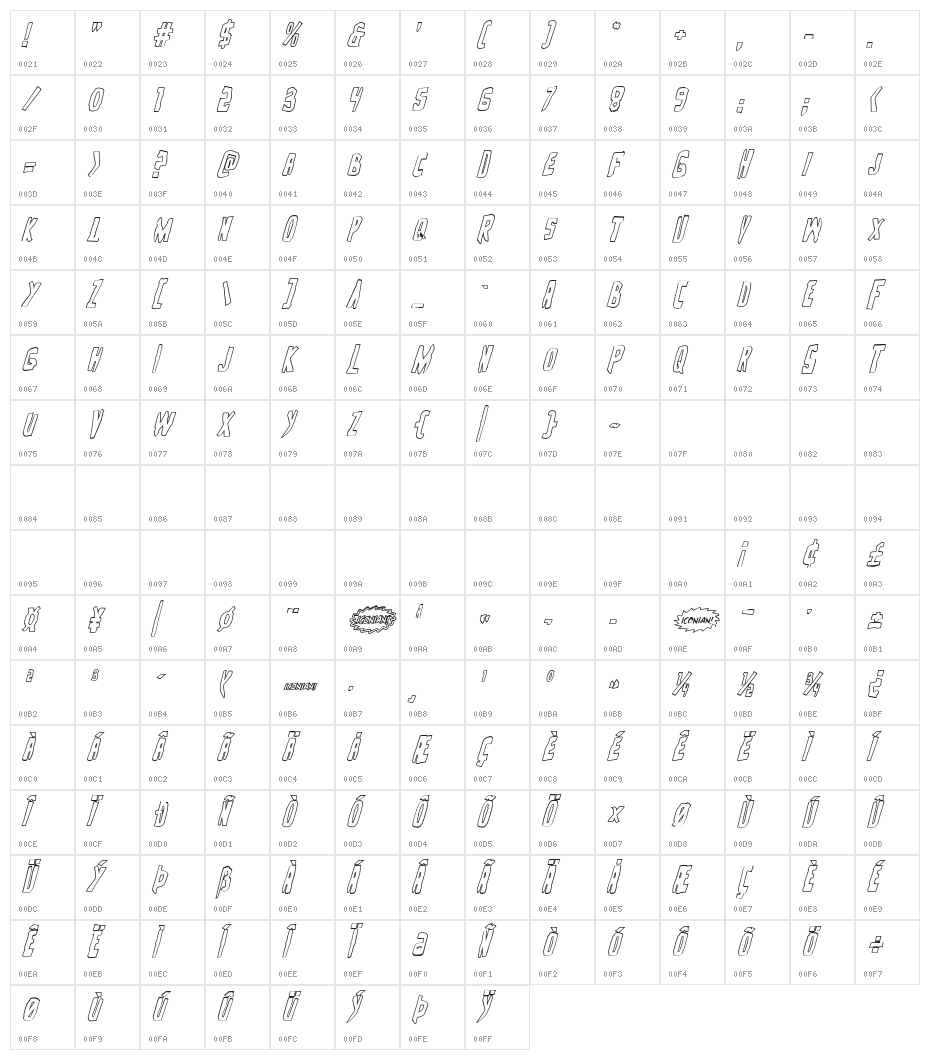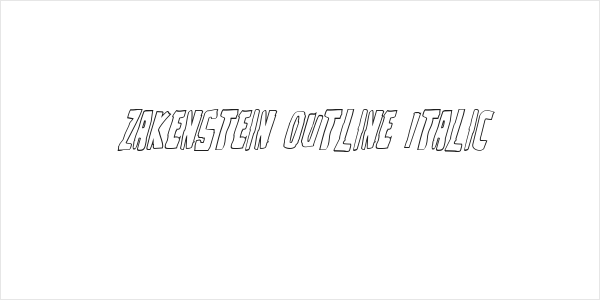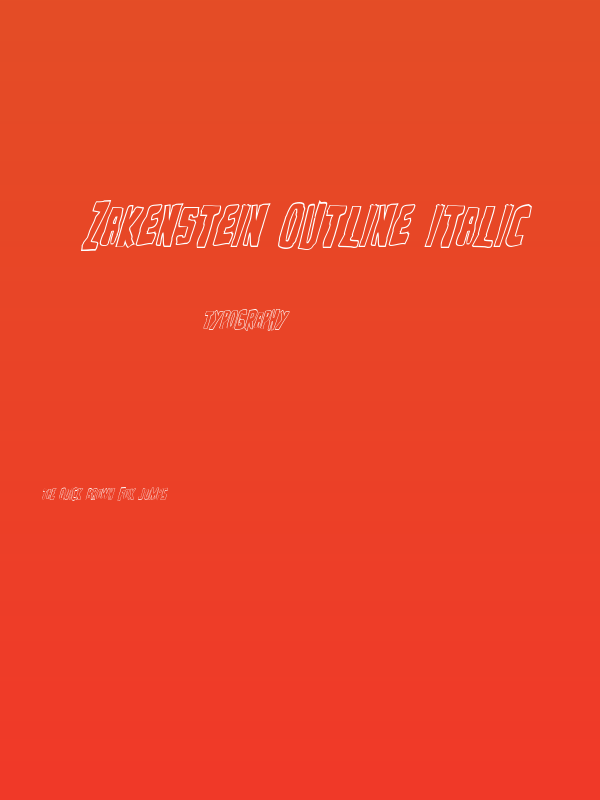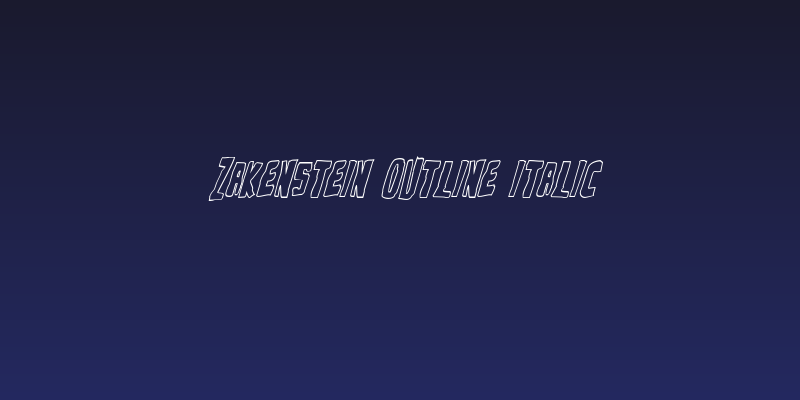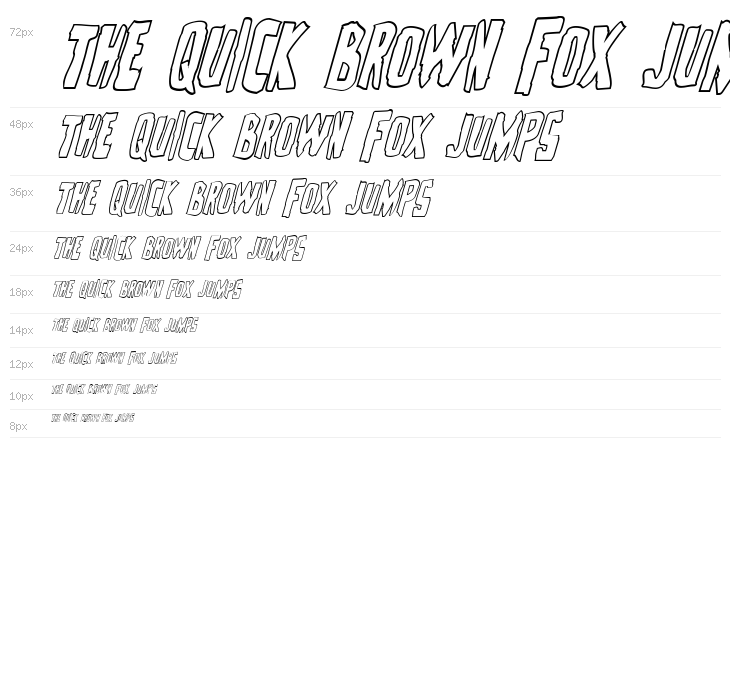
Zakenstein Outline Italic Font
Zakenstein Outline Italic Description
This font features an outline style with a dynamic and energetic appearance. The characters are italicized, giving them a sense of motion and flair. The uppercase and lowercase letters maintain a consistent outline thickness, providing a cohesive look across the alphabet. The numerals and special characters follow the same stylistic approach, ensuring uniformity. The font's design is bold and eye-catching, making it suitable for projects that require a strong visual impact. Its unique style is both modern and playful, ideal for creative and unconventional applications.
| Proposed Projects | Ideal for posters, logos, branding, and any design needing a bold, modern touch. |